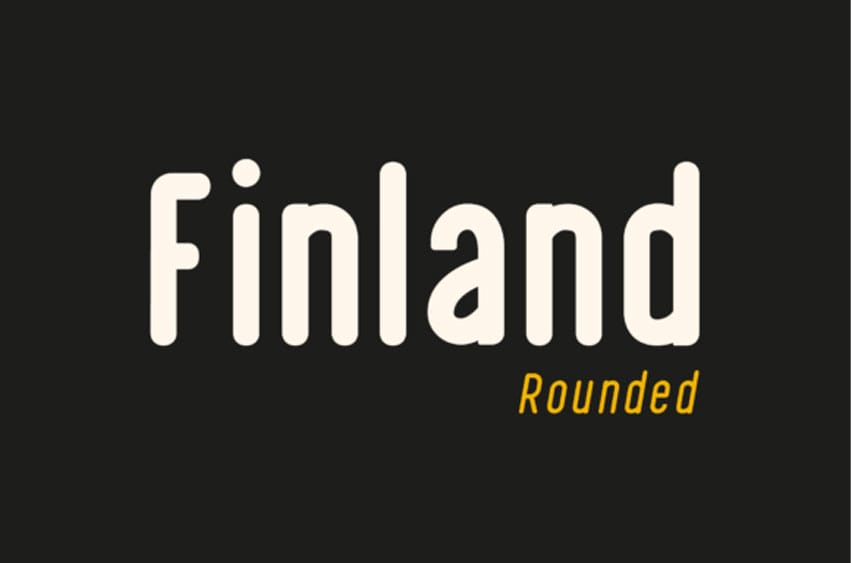
Finland Rounded Font family has been crafted from scratch and features a unique structural logic: a fusion of pure geometry and optical balance.
The Finland Rounded family comes with 6 unique styles: Regular, Italic, Thin, Thin Italic, Bold & Bold Italic.